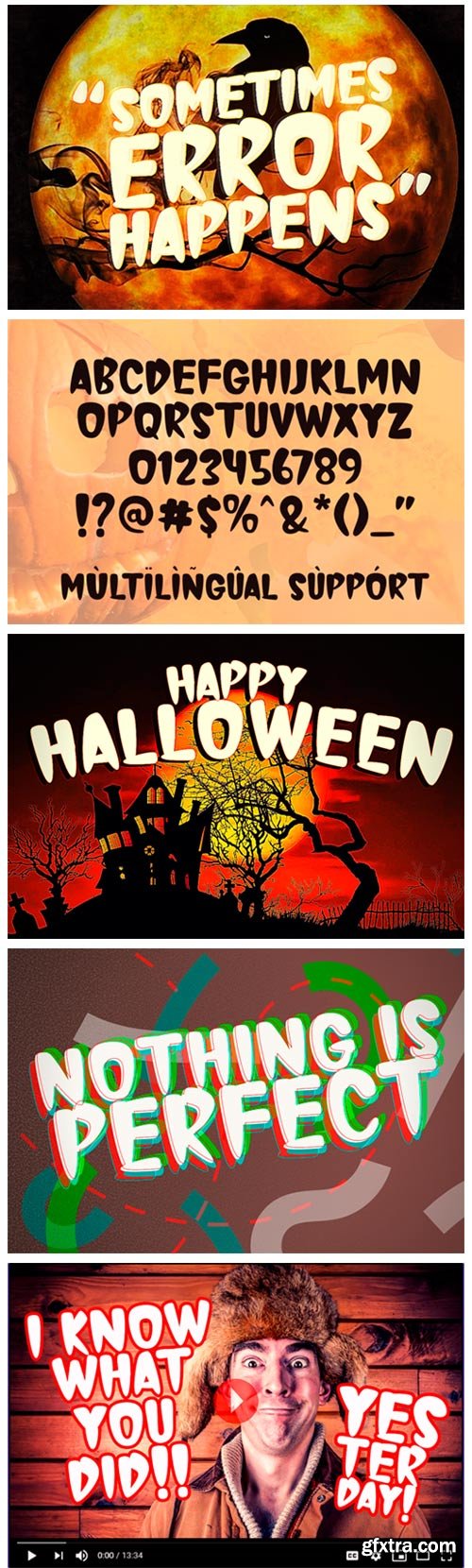
Sometimes Error Happens Font
Sometimes Error Happens is a quirky and spooky display font. Add this font to your creative ideas and notice how it will make them stand out!